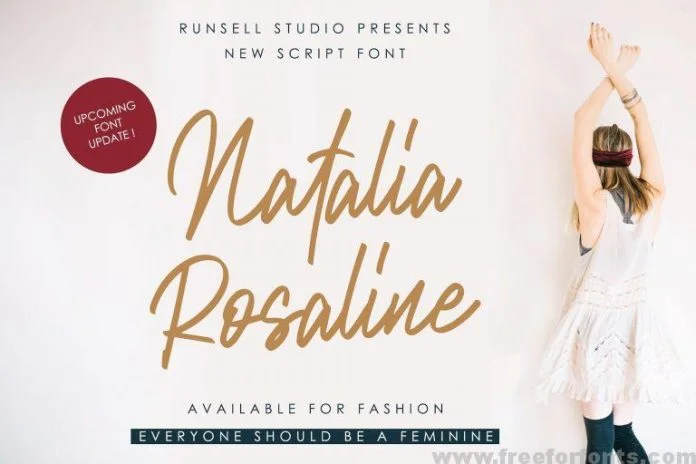
Natalia Rosaline Font Duo Free Download
Natalia Rosaline Font Duo is perfect for wedding invitations, romantic greeting cards, beauty salon branding, fashion boutique logos, feminine blog headers, cosmetic packaging, jewelry advertising, luxury brand identity, social media quotes, and elegant stationery design.
Natalia Rosaline Font Duo is exciting because it combines two complementary typefaces that work harmoniously together to create sophisticated, feminine designs with timeless elegance. This carefully curated pairing offers designers the perfect balance between script sophistication and clean readability, making it ideal for luxury brands and romantic projects.
The Natalia Rosaline Font Duo family includes an elegant script font with flowing letterforms and a complementary sans-serif or serif companion font. Each typeface features multiple weights and styles, including regular, bold, and italic variations, plus decorative swashes and alternate characters for enhanced design flexibility.
Natalia Rosaline Font Duo Free Download provides exceptional value for designers seeking premium typography solutions for feminine and luxury market segments. This sophisticated font pairing has been professionally crafted to ensure perfect harmony between both typefaces, offering endless creative possibilities for high-end design projects. The script component features graceful curves and elegant flourishes, while the companion font provides clean, readable text for supporting content.
The versatility of Natalia Rosaline Font Duo makes it an indispensable tool for brand designers working with beauty, fashion, and lifestyle clients. The fonts work beautifully together in hierarchical layouts, allowing designers to create visually striking headers with the script font while maintaining excellent readability for body text with the companion typeface. This combination ensures professional results across all design applications.
Wedding planners, beauty professionals, and luxury brand managers consistently choose Natalia Rosaline Font Duo for its ability to convey sophistication and feminine elegance. The font duo excels in creating memorable brand identities that appeal to discerning customers seeking premium products and services. Its romantic character makes it particularly effective for businesses targeting women and couples.
This font duo's comprehensive character sets include extensive language support, decorative elements, ligatures, and special symbols necessary for professional typographic work. The careful attention to kerning and spacing ensures flawless text composition across all applications, from business cards to large-format advertising materials.